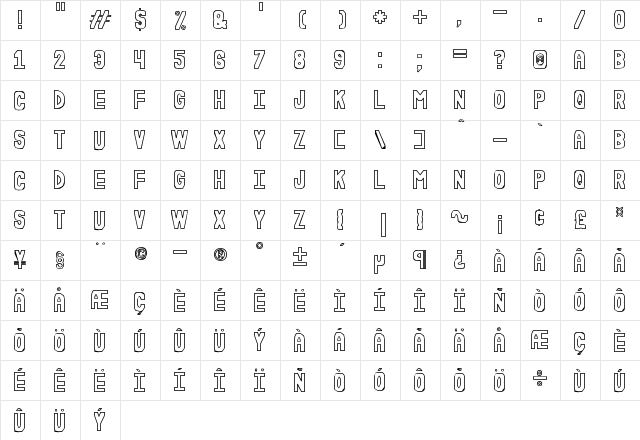
Rudasteria St Regular
Design Context for Rudasteria St Typeface
Rudasteria St is a composed and adaptable typeface that performs quietly and consistently across a wide range of design contexts.